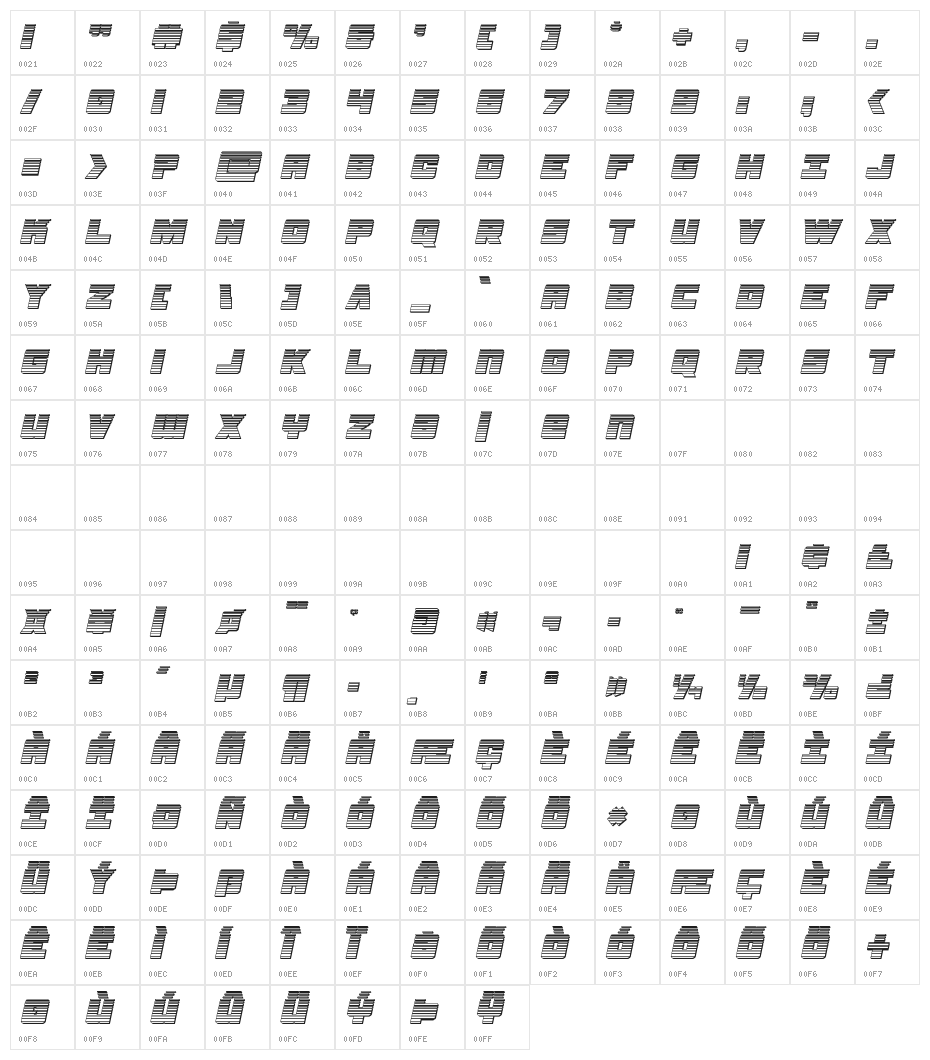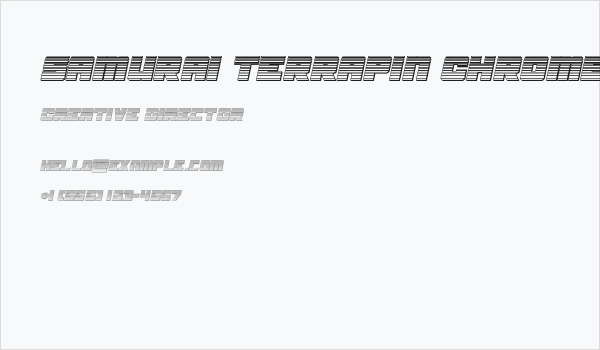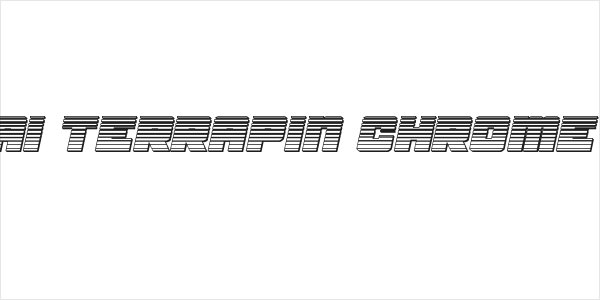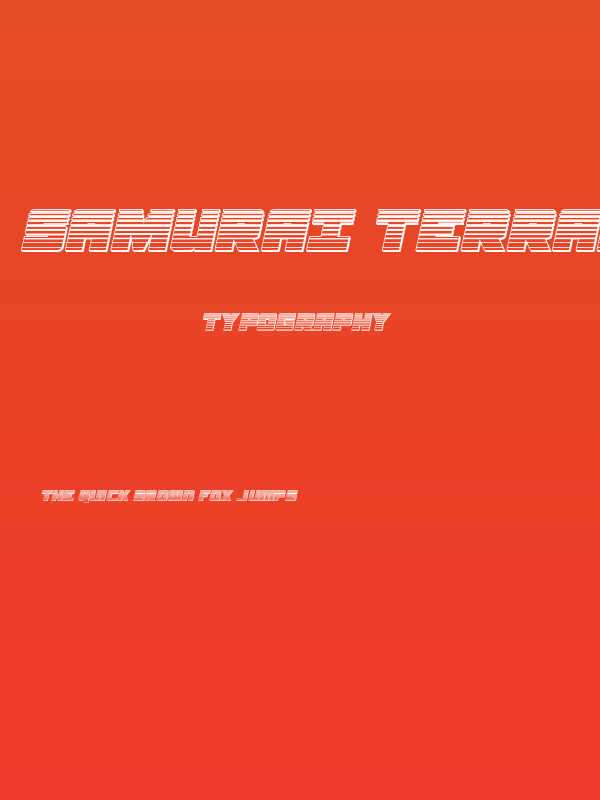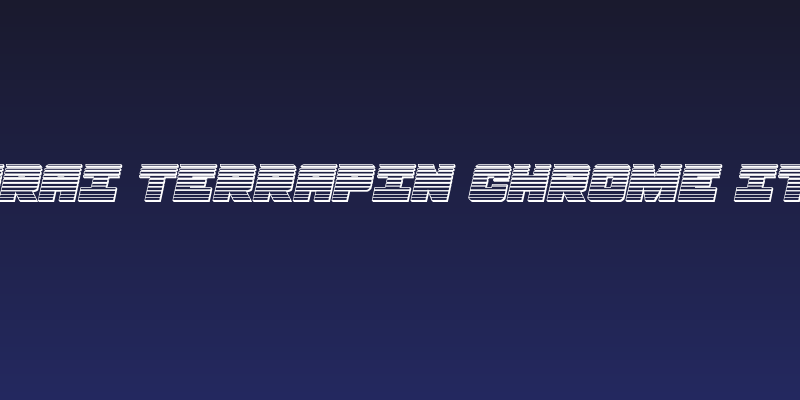
Samurai Terrapin Chrome Italic Font
Samurai Terrapin Chrome Italic Description
This font features a bold, futuristic design with a distinct three-dimensional effect created by parallel lines running through each character. The uppercase and lowercase letters maintain a consistent style, emphasizing a sense of movement and speed. The numerals and special characters are equally dynamic, making them stand out with their unique striped pattern. The overall aesthetic is reminiscent of retro-futuristic themes, combining elements of both modern and vintage design. Its bold presence and unique style make it ideal for projects that require a strong visual impact.
| Overall Style | Futuristic, Retro |
| Proposed Projects | Ideal for sci-fi themed posters, video game titles, and branding that requires a strong, dynamic presence. |